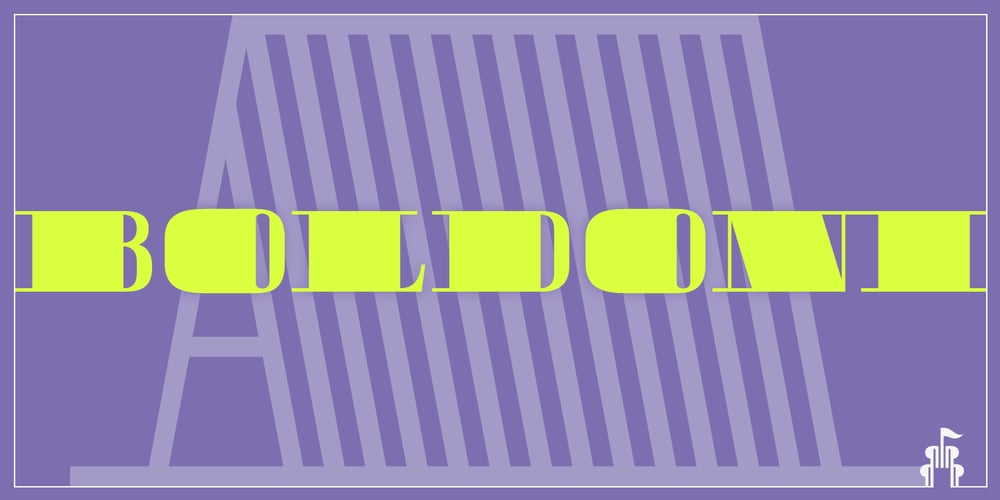
Boldoni Font Family was designed by published by Forte Type. Boldoni contains 5 styles and family package options. Boldoni is like a caricature: it brings with itself exaggerated elements of the modern typefaces, that has as main names Giambattista Bodoni and François-Ambroise Didot. Boldoni takes to the limit its width and serifs, causing a ultra fat type feeling, and its styles causes a monochromatic effect that remember the colors Black, Gray and White. Boldoni is good for titles, initials, drop caps, lettering, posters and vertical writing.